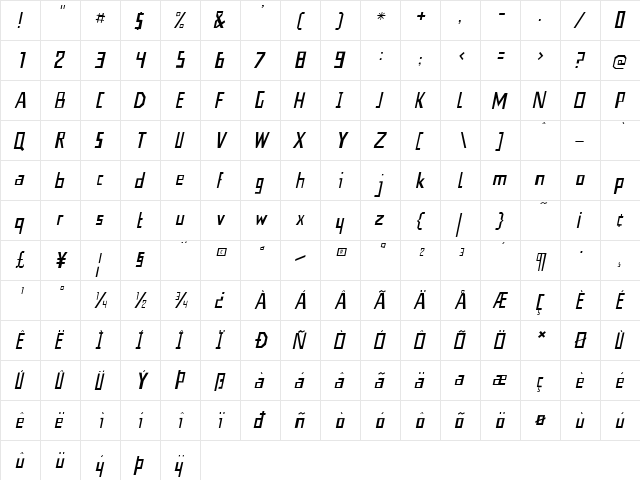
Nevermind Italic
| Designer | Max Kisman |
Design Context for Nevermind Typeface
Nevermind offers clean, dependable letterforms without strong stylistic allegiance, making it a practical choice for designers who need flexibility. Its italic angle brings a sense of urgency and motion to the letterforms.
Pro Tip: Try Nevermind for annotation and caption copy alongside an upright companion — the contrast in angle creates a dynamic but ordered typographic system.